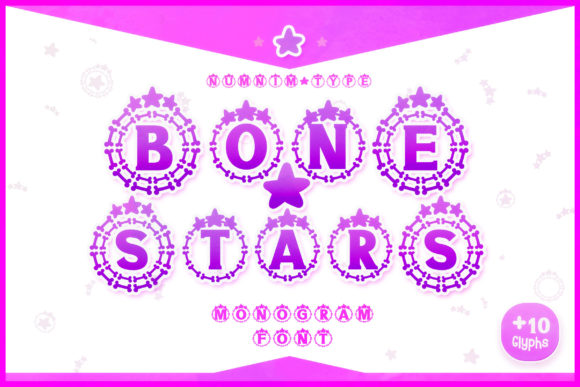
Feast your eyes on Bone Stars, a decorative font family that exudes festive charm and playful vibes. This font, crafted by the talented numnim, is the epitome of fun and frivolity, adding a touch of whimsy to your creative endeavors.
Immerse yourself in the world of Bone Stars, where letters dance and characters come alive. This font family is a perfect match for crafting eye-catching signage, presentations that pack a punch, and social media posts that pop. Let your imagination soar as you explore the possibilities of Bone Stars.
Bone Stars is not just another font; it's an experience. With its PUA encoding, you'll have effortless access to a treasure trove of glyphs and swashes, unlocking a world of creative freedom. Unleash your inner artist and let your designs shine brighter than ever before.
Whether you're looking to create captivating posters, eye-popping logos, or social media graphics that demand attention, Bone Stars is your go-to choice. Its versatility shines through, making it suitable for a wide range of projects.
Don't miss out on the opportunity to elevate your designs to new heights. Embark on a creative journey with Bone Stars, and let your imagination run wild. Embrace the festive spirit and inject a dose of fun into your projects.